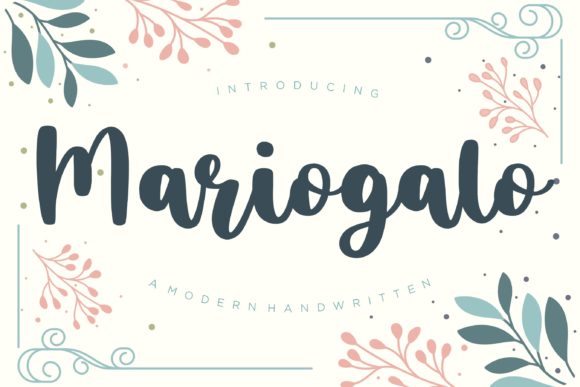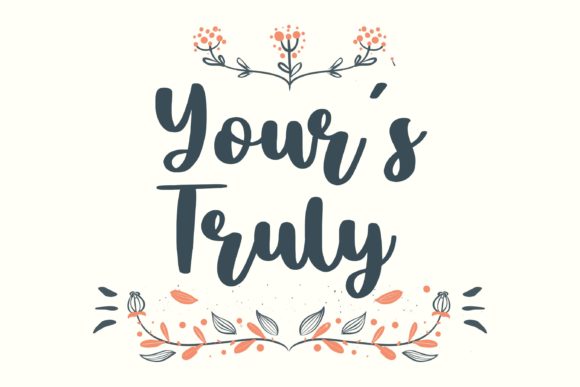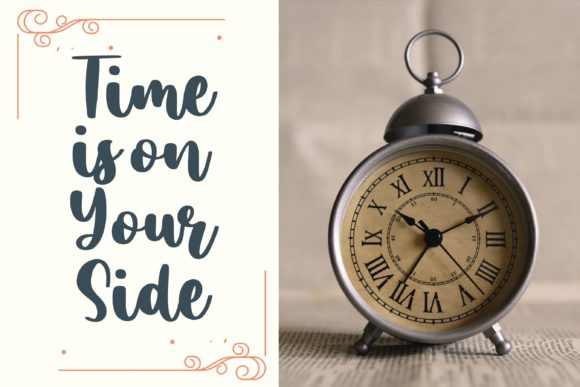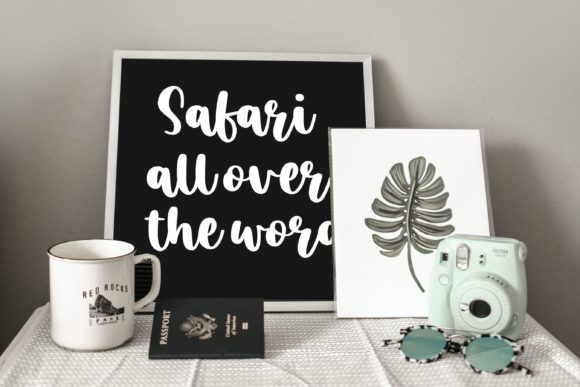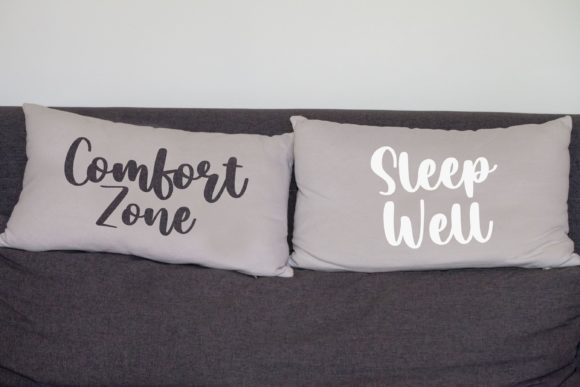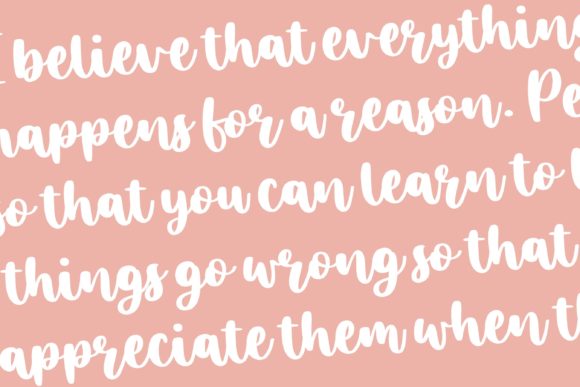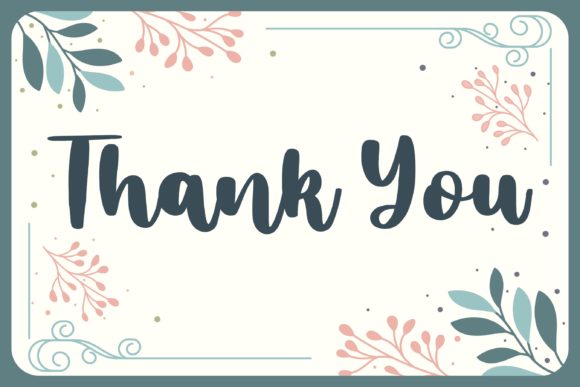
Mariogalo Font
About Mariogalo Font
Mariogalo is a sweet and playful handwritten font, created with the help of a brush pen. Its friendly style makes it incredibly versatile, your best choice for both formal and non-formal designs!